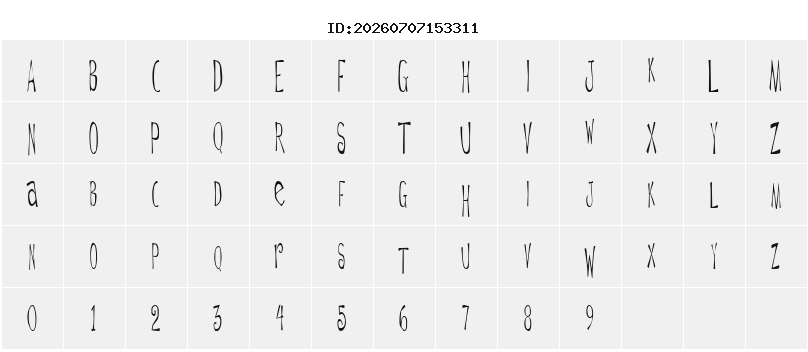
Daytripper Preview
• Font Name: Daytripper
• Font Style: Plain
• Font ID: Altsys Fontographer 3.3 Daytripper Plain
• Full Font Name: Daytripper
• Version: Altsys Fontographer 3.3 6/1/94
• PostScript Name: Daytripper
• Character Count: 72
About Daytripper.ttf
Daytripper.ttf is a modern, elegant sans-serif font designed for ultimate readability and visual harmony. Perfect for branding, headlines, web design, and print materials.